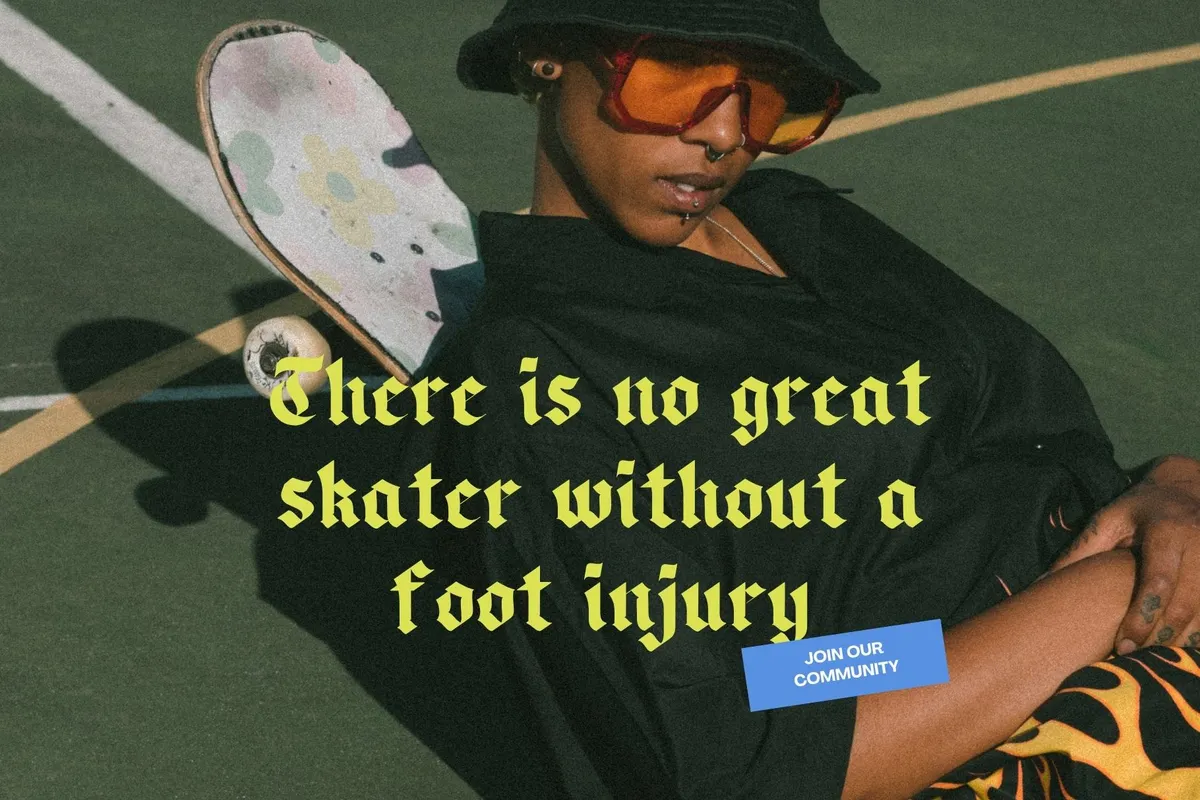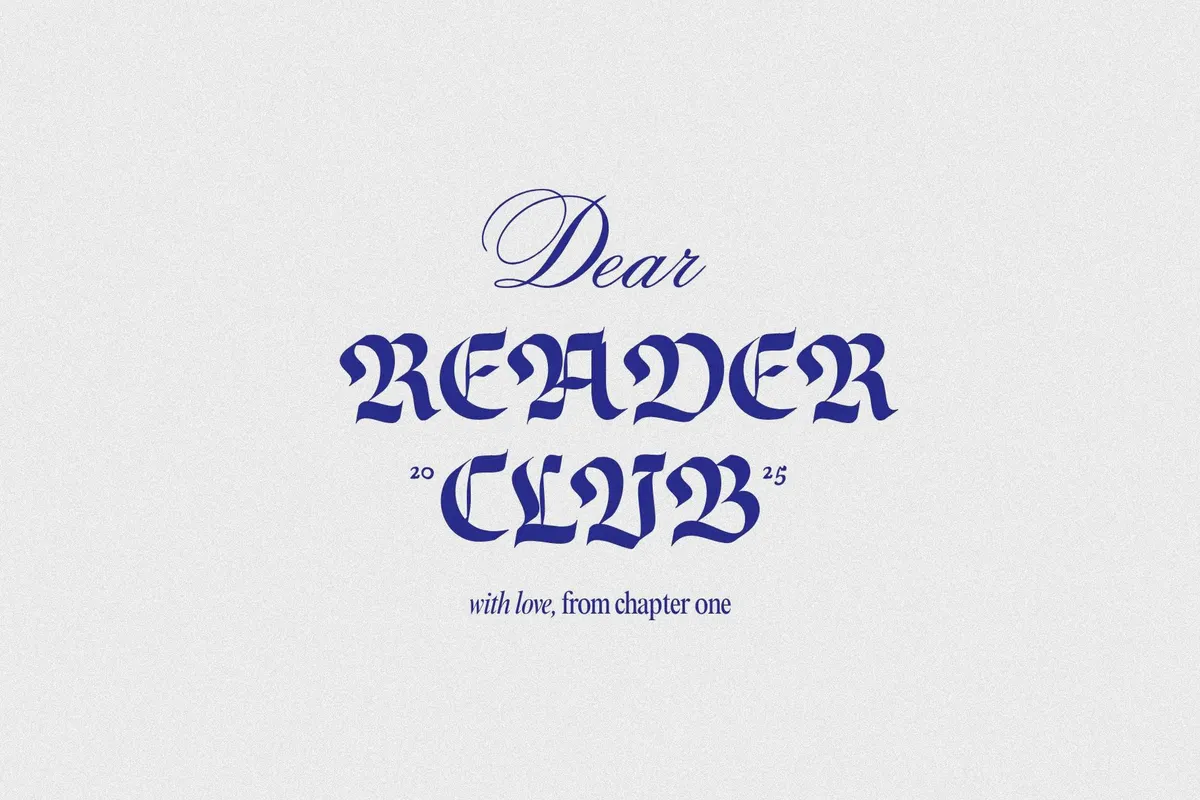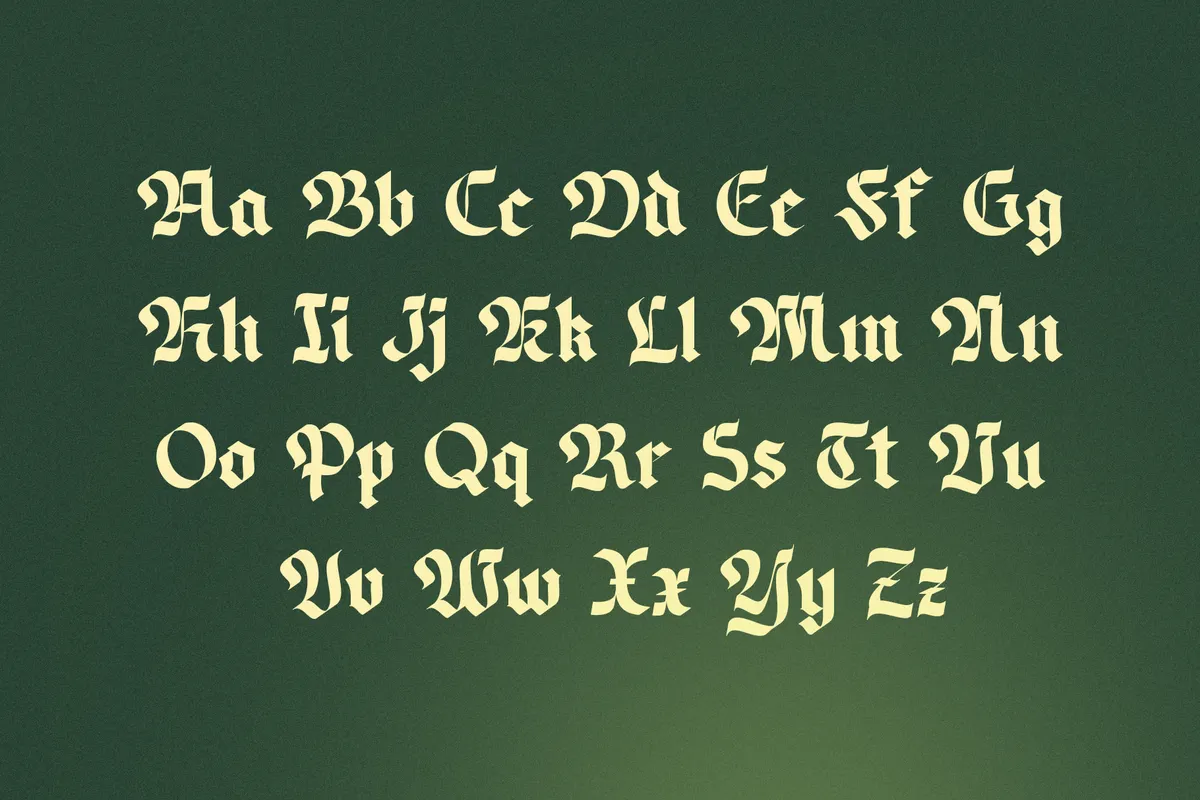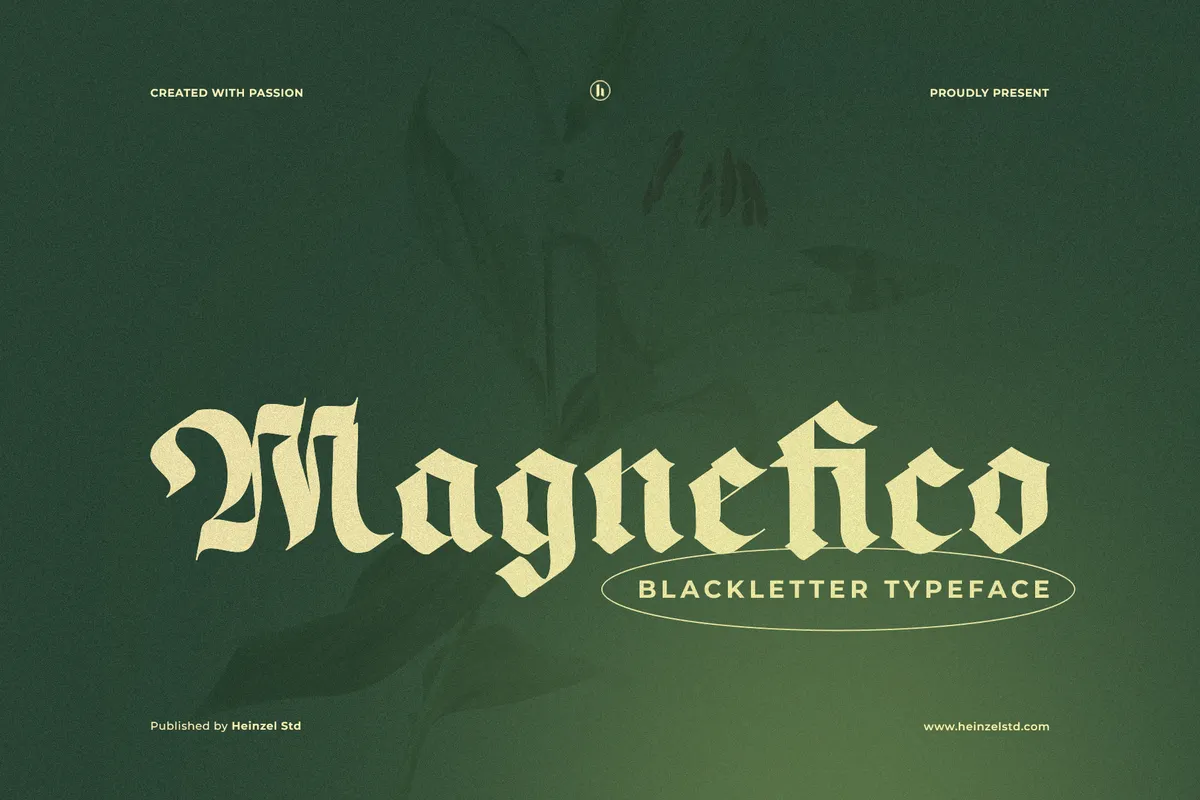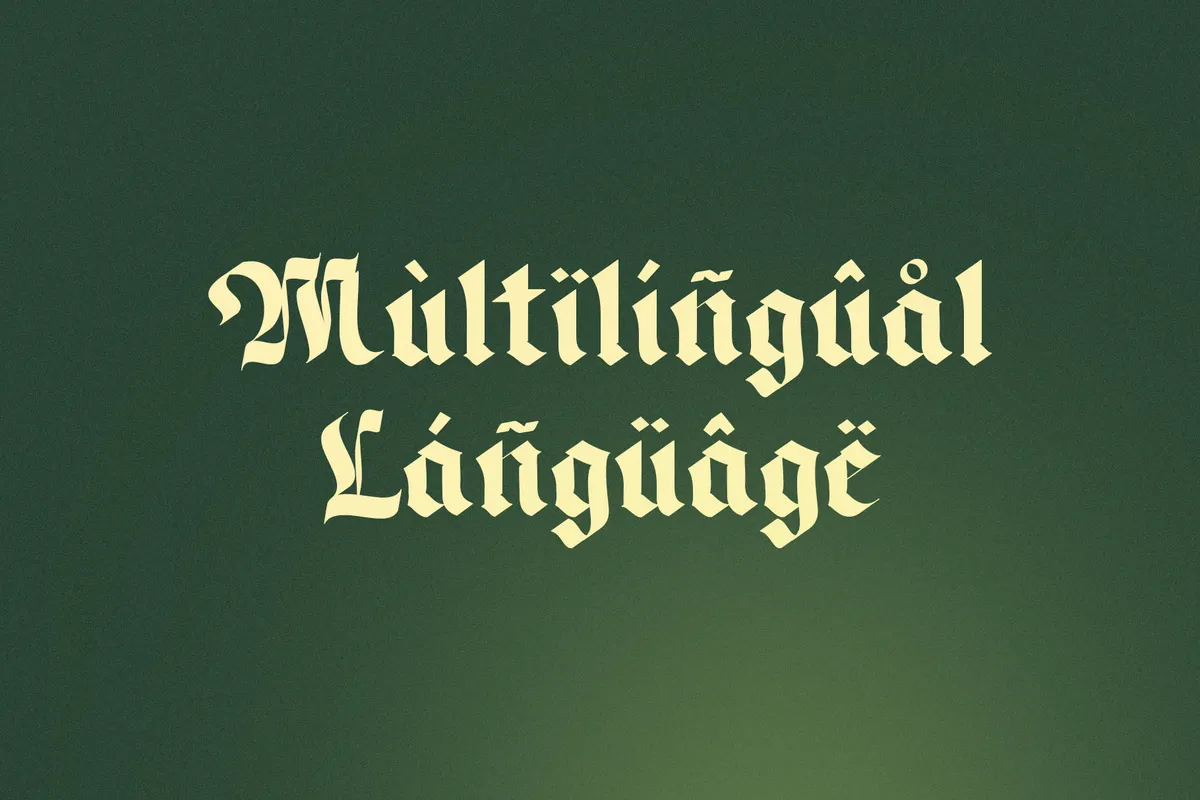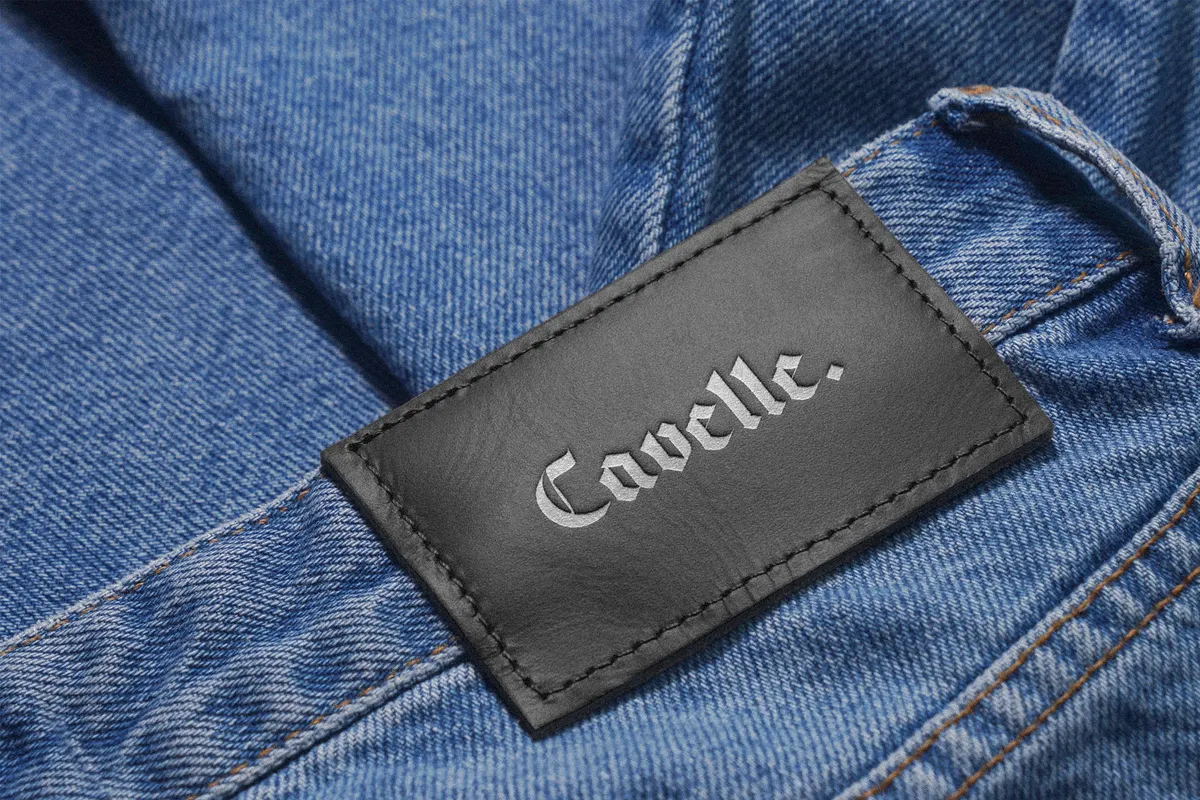
Magnefico - Bold Blackletter Font
Magnefico builds bold, angular blackletter capitals with a modern gothic edge, closer to a streetwear logo than a quiet medieval manuscript. Uppercase and lowercase are built as two distinct alphabets, so the blackletter keeps real contrast and texture at both cases.
Use it for vintage logos, gothic branding, streetwear design, tattoo artwork, album covers, and bold poster headlines.
- Uppercase & lowercase;
- Numerals, punctuation & symbols;
- Ligatures (ff, fi, st), fractions, and superscript figures;
- Extended Latin character set